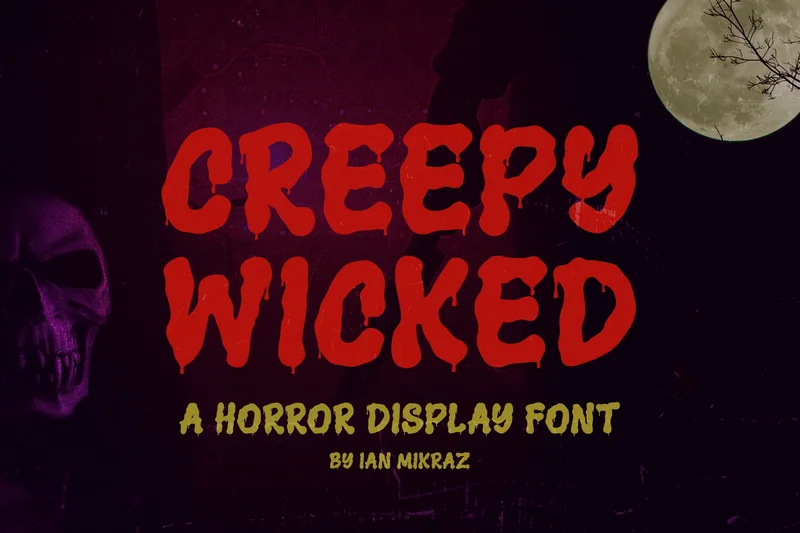
Creepy Wicked – Spooky Drip Halloween Display Font
Creepy Wicked is a bold horror display font shaped with thick, blobby drips and gritty edges—perfect for Halloween visuals and anything that needs a deliciously sinister vibe. Use it to scream on posters, party invitations, spooky sale banners, social posts, game titles, YouTube thumbnails, and haunted-house signage. Its organic, hand-cut look instantly delivers fear, fun, and high-impact readability.
Designed for loud headlines, the font includes uppercase and lowercase letters, numbers, punctuation, symbols, multilingual accents, and natural ligatures for smoother word shapes. Tight kerning and chunky silhouettes keep your type solid on both print and screen, from large-format billboards to mobile stories. Expect strong character shapes that hold detail even under heavy textures, glows, or gradients.